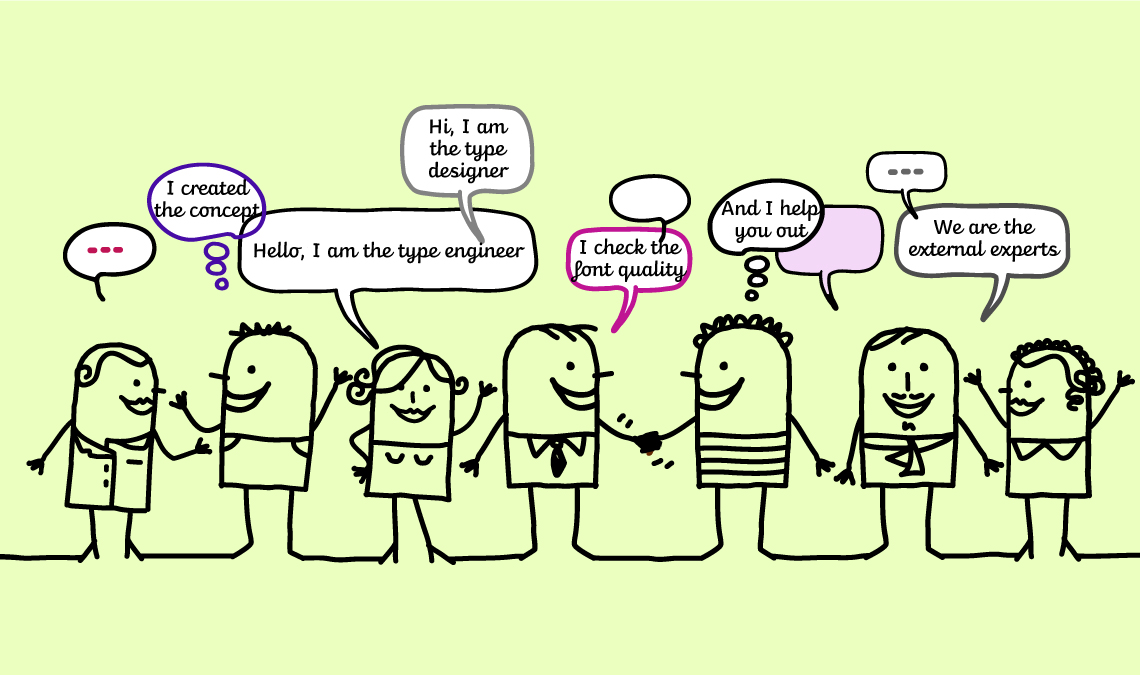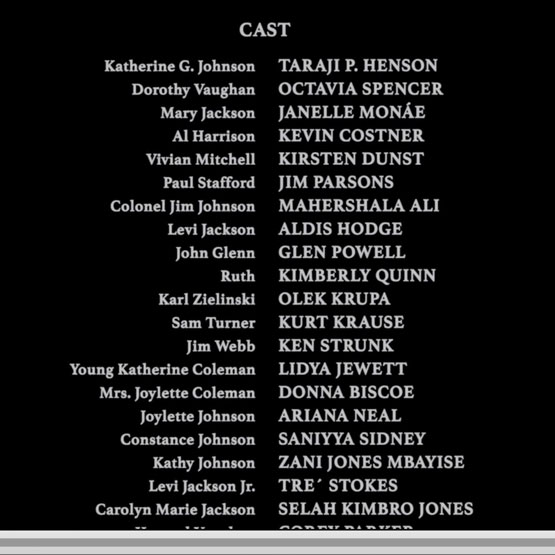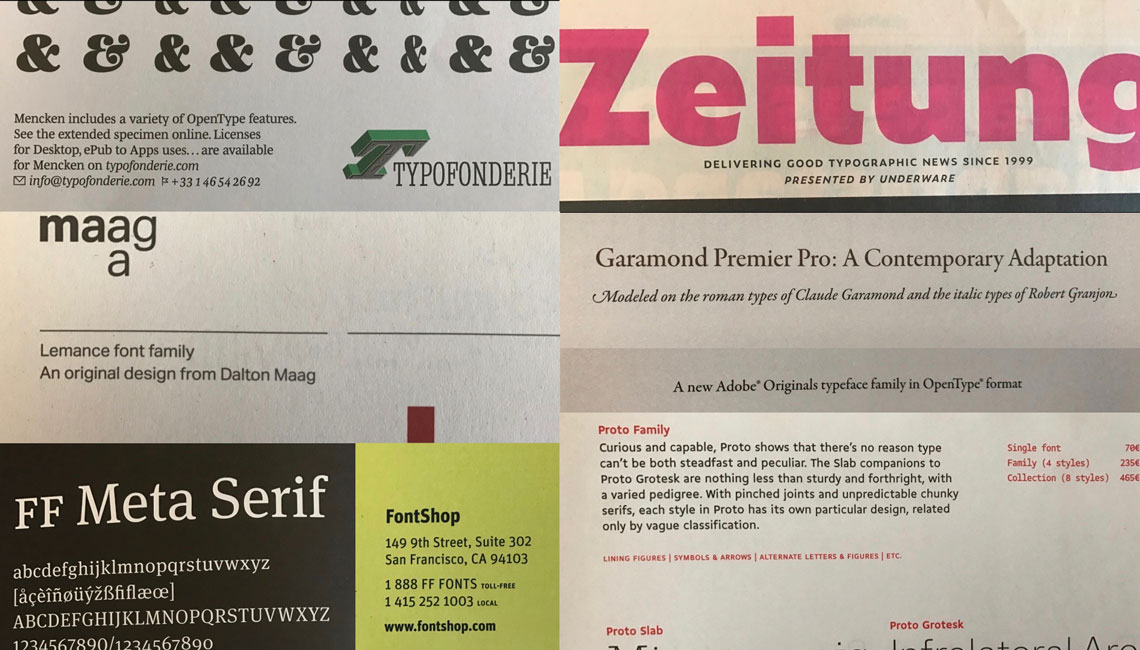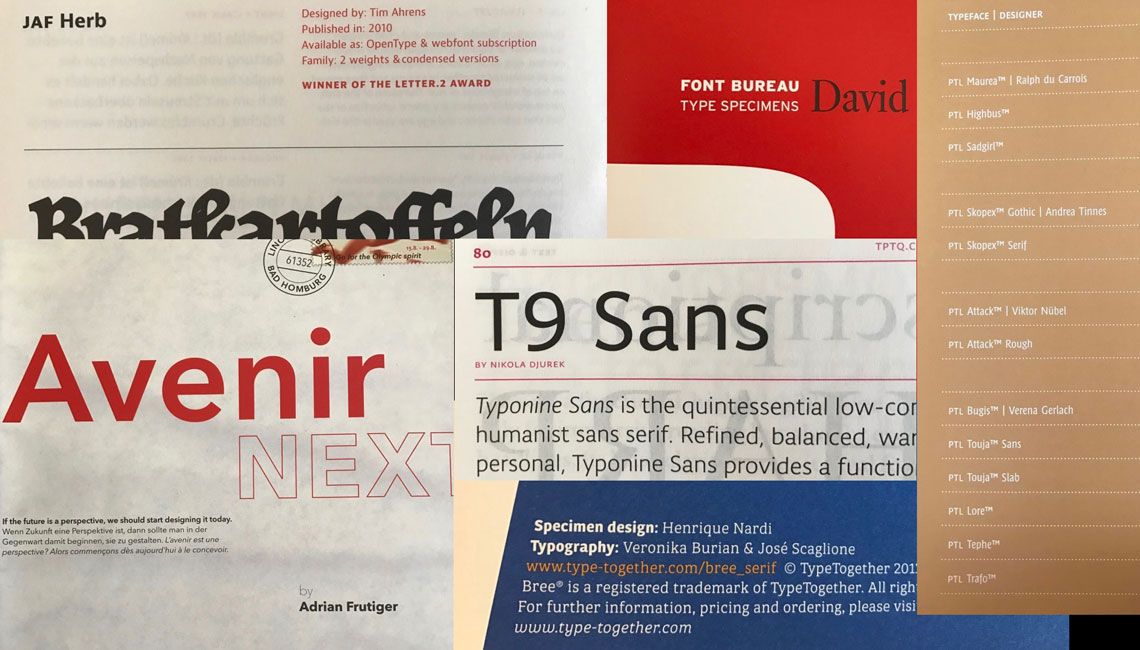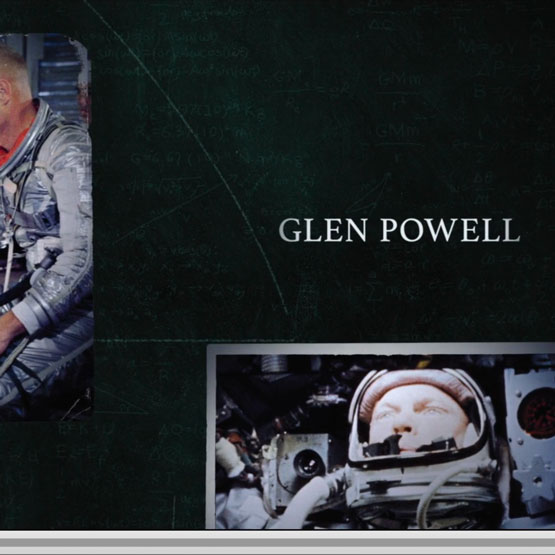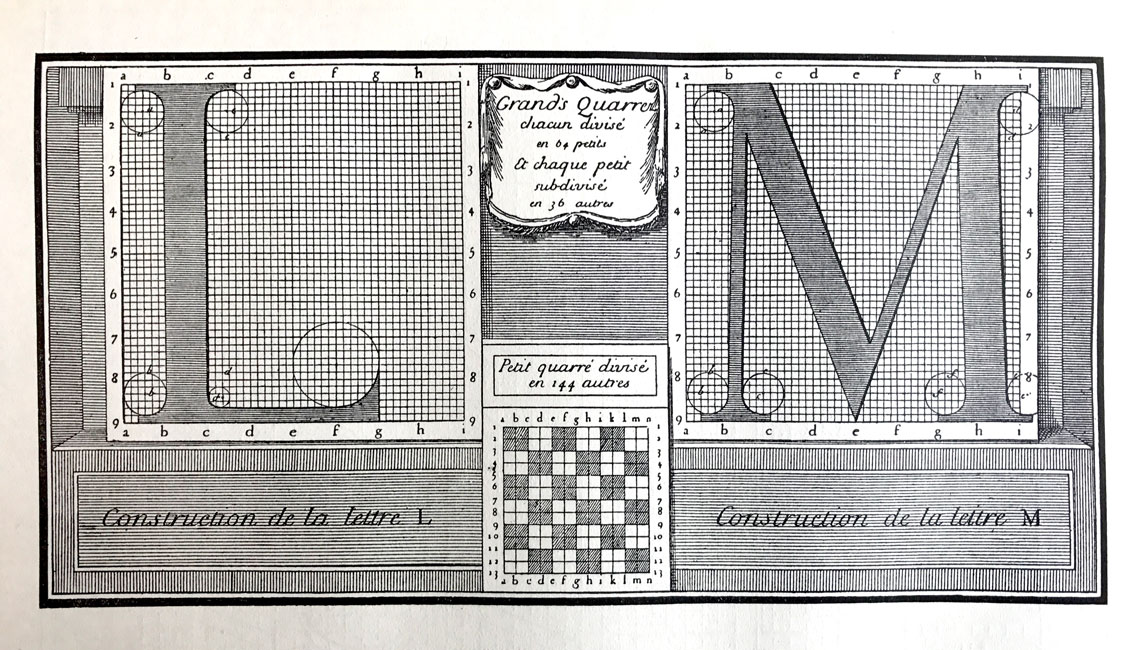
Crediting in typeface design
At 2017’s ATypI in Montreal, Veronika & José gave a talk about how to credit within the type world, and it seems to have resonated. Larger teams and more complex work are moving type design toward more thorough crediting systems. But it’s only partially about the system and more about honouring the often unknown ones investing their considerable skills into producing the fonts we use and love. We at TypeTogether have already begun making improvements in this area. What considerations were taken into account and what conclusions have been reached thus far? Grab your beverage of choice and read on.
background
To begin with, type design is a problematic field when it comes to crediting for several reasons. It can be done by a single person working from a home office, or by large teams of professionals, each of them dealing with very specific parts of the development and release cycle. Many of the necessary tasks may require in-depth research, hiring external consultants, or outsourcing processes. These external collaborators may not push nodes around, but they do contribute toward the final product’s quality — or lack thereof.
Charles Bigelow  on typeface design
Another important fact that is obvious but should be mentioned is that type design has changed together with technology — from a craft to an industrial trade to a technical design field. As part of an article about intellectual property and copyrights, Charles Bigelow compares type design to a monumental sculpture or to the design of a programming language. Bigelow helps us understand some of the first things we need to consider when discussing credits. In short, type design has a strong artistic component — parts of the process imply creativity — and it has become a technically challenging trade — other processes require specific technical knowledge.
At the same time, the artistic qualities of a typeface are not solely related to the drawing of lettershapes. In creative terms, what we call the authorship of a typeface is much more than drawing outlines. The idea and concept culminating in the final shapes and how they work together needs to be credited as crucial artistic contribution. It is about the creation of something that is different, that is unique. As such, in some cases the technical side should also be acknowledged as part of the design. For example, Twin by LettError is a type family that changes according to data input; in this case the weather.
But where do you draw the line? As Bianca Berning points out, “For example VAR fonts are very technical,” acknowledging the designer is not done when the drawing is finished. “Engineering is a lot of work.” Unfortunately the current legislation about IP protection in our field is inconsistent and does not offer a useful framework. Some countries protect the design of letterforms, others treat typefaces as software code. Apart from the inherent moral rights, the conditions of intellectual property and conceptual creation most likely will have to be defined on a case-by-case basis. The goal of this article is to discuss a sound crediting strategy for typeface development which is broader and separate — even if related — from the definition of what authorship is in the type business.
The problem of giving appropriate acknowledgement is nothing new; history is full of erroneously credited work. For example there is the case of Miklós Kis, a Transylvanian Protestant priest and schoolteacher who grew deeply interested in printing after being sent to Amsterdam to help print a Hungarian protestant translation of the Bible. Kis became an accomplished punchcutter working on commission for printers and governments. As he returned to Transylvania around 1689, it is assumed that he left his matrices in Leipzig, which were then wrongly attributed to Janson based on a specimen sheet released by Leipzig’s Ehrhardt foundry around 1720.
Another case is about Philippe Grandjean, the punchcutter of the famous Romain du Roi typeface. The committee in charge met regularly with Grandjean to check on the status of his work, demanding many changes and adjustments, sometimes even requiring Grandjean to destroy his punches and matrices and start over completely. Interestingly though, Philippe Grandjean did not follow the committee’s drawings slavishly and, by doing so, his subtle interpretation resulted in a softer and more beautiful typeface.
And of course there are the many, many women executing their chores of making type in metal and phototypesetting that tended not to get much recognition or respect. Their contribution, especially in the drawing room where they turned the designer’s sketches into a functional type product, was crucial for the foundry’s success.
Roman du Roi typeface, 1693 (source: Krásné písmo II, František Muzika)
Example engraving of letters ‘L’ and ‘M’ of the Roman du Roi typeface, 1693 (source: Krásné písmo II, František Muzika).
why is crediting important?
In general terms, crediting influences the viewer and their judgement of the presented work. However, without a clear and concise standard defining different contributions from different parties, crediting becomes difficult and vague.
Crediting helps to create an appropriate labour hierarchy. It is not sufficient to only acknowledge the main player and therefore attribute genius to that one individual, especially when a team and distinct hierarchies are involved. This is especially true in multiscript type design, where collaboration is key and the technical contribution is as valuable as the design portion in order to complete a functional product. In addition, credibility and quality increase when the audience knows that knowledgeable professionals of the particular script took a formative role. Users are more likely to accept and favour designs with these attributes in place.
A crediting standard could also institutionalise a shared vocabulary of job titles and therefore improve the general understanding of the implied responsibility and involvement in the type design process. However, not always do job titles associate the level of authorship correctly, reflecting the actual engagement of all parties. The created context, thowould clarify responsibilities and hence accountability.
Fair and proper crediting is important for the typography industry as a whole. It nourishes the community and helps to establish type-making as an endeavour worthy of people’s attention and appreciation.